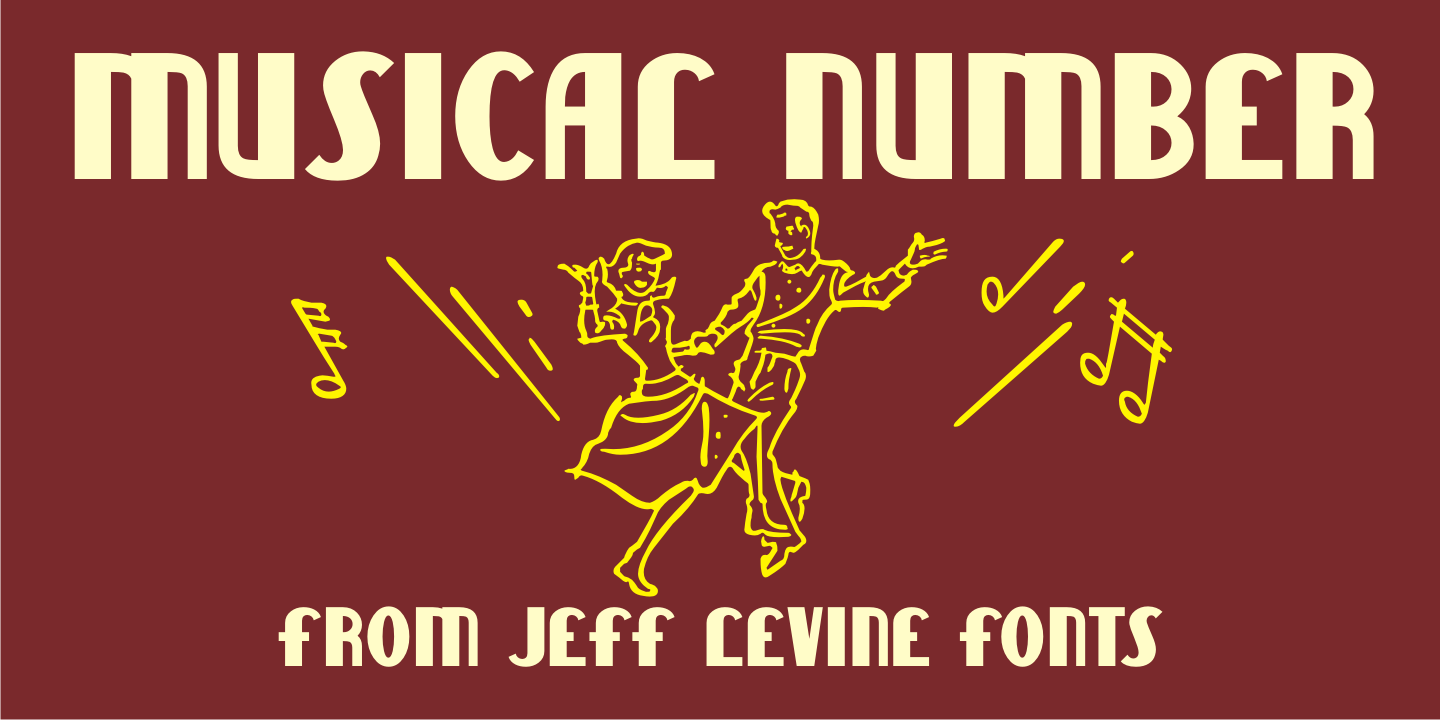
Musical Number JNL Font is perfect for Broadway theater branding, musical production posters, vintage cabaret signage, theatrical program designs, entertainment venue logos, show tune album covers, dance studio graphics, and spectacular designs that require authentic Broadway glamour and theatrical showmanship.
This font is exciting because it captures the dazzling excitement of Broadway productions through its show-stopping letterforms that seem to dance with the rhythm and energy of live musical theater. The theatrical character design embodies the magic and spectacle of stage performances, making it perfect for brands seeking to convey entertainment value, artistic excellence, and the unforgettable experience of live musical productions.
Musical Number JNL Font belongs to the theatrical display font family, featuring Broadway styling and entertainment elements that enhance its authenticity for musical theater and performance-focused design applications.
Whether you're creating musical theater branding or entertainment venue graphics, Musical Number JNL Font Free Download delivers maximum theatrical impact and Broadway sophistication. This typeface represents the perfect fusion of artistic expression with commercial entertainment appeal, making it essential for designers working on projects that celebrate musical performance and theatrical excellence. The font's spectacular presence works magnificently in theater communications, entertainment promotions, and artistic materials, providing optimal readability while maintaining its musical character that transforms any design with Broadway magic and creates unforgettable show business experiences across all media platforms and theatrical communications.